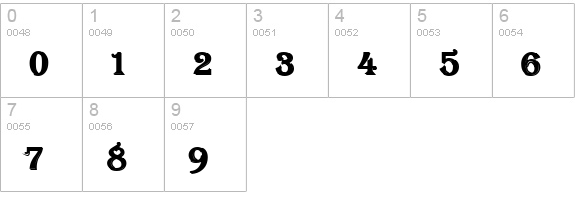
Tangiers Bold Font Details
Tangiers Bold is a strong, high-contrast variant in the Tangiers typeface family \xE2\x80\x94 well suited to headlines, attention-grabbing titles, and strong calls-to-action.
Introducing Tangiers Bold, a captivating and versatile font that effortlessly combines boldness and elegance. With its strong and commanding presence, Tangiers Bold is sure to make a lasting impression in any design project. This font features meticulously crafted letterforms, each exuding confidence and sophistication. Its bold weight adds a sense of power and prominence, making it perfect for headlines, titles, and impactful statements. Whether used in digital or print media, Tangiers Bold demands attention and leaves a memorable mark. But what truly sets Tangiers Bold apart is its accessibility. We believe that great design should be available to all, and that's why we're thrilled to offer this font for free. Yes, you read that right – Tangiers Bold is freely available to download at FontsMarket.com. By making this font freely accessible, we hope to empower designers, creatives, and enthusiasts to unlock their full potential and bring their visions to life. Whether you're a professional designer or a hobbyist, Tangiers Bold is here to provide you with the tools you need to create visually stunning work. So go ahead, explore the endless possibilities that Tangiers Bold has to offer. Its bold strokes and timeless appeal will elevate your designs to new heights, all while ensuring that accessibility and creativity go hand in hand. Download Tangiers Bold today, and let your imagination soar. Remember, it's free at FontsMarket.com – because great design should never be limited.